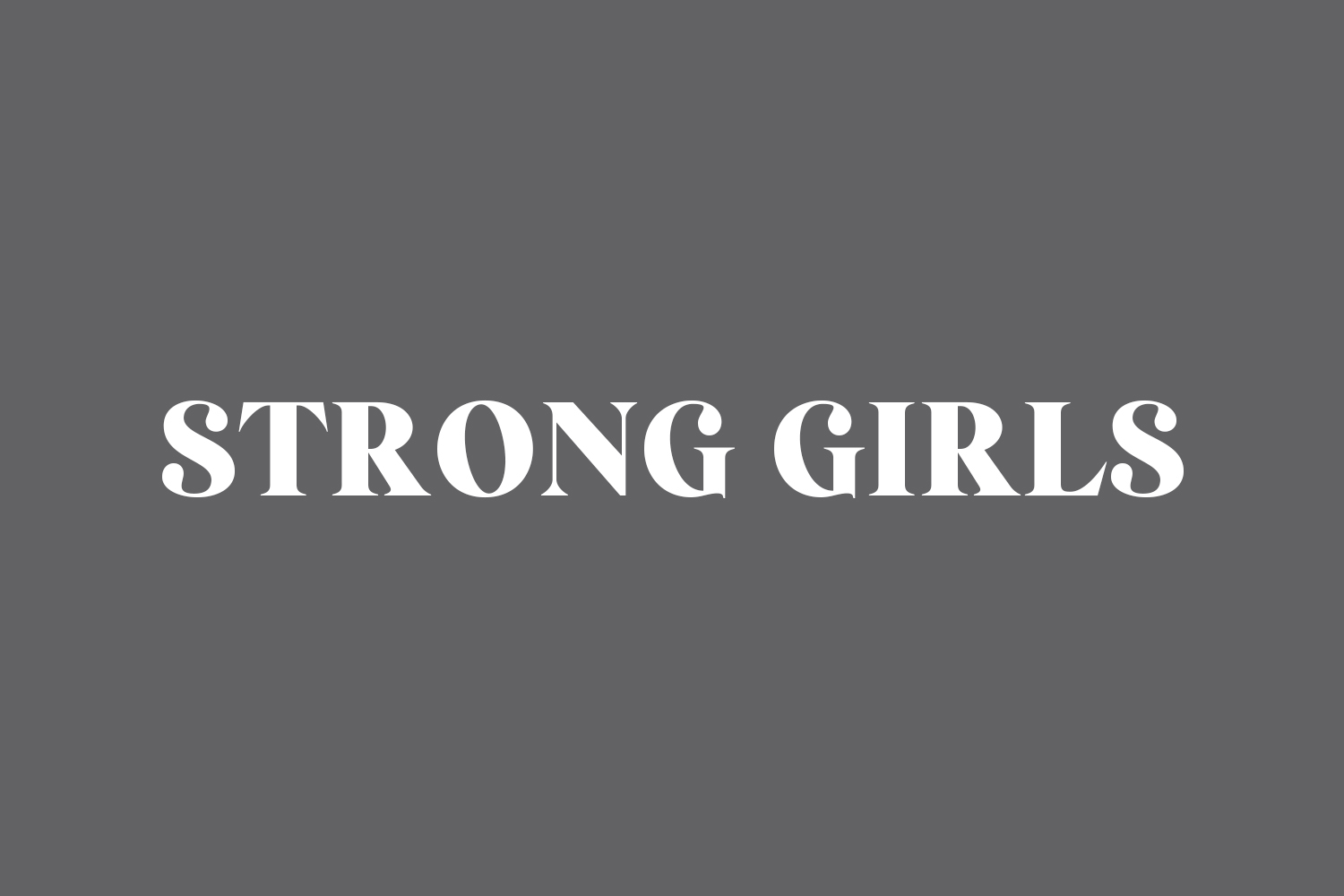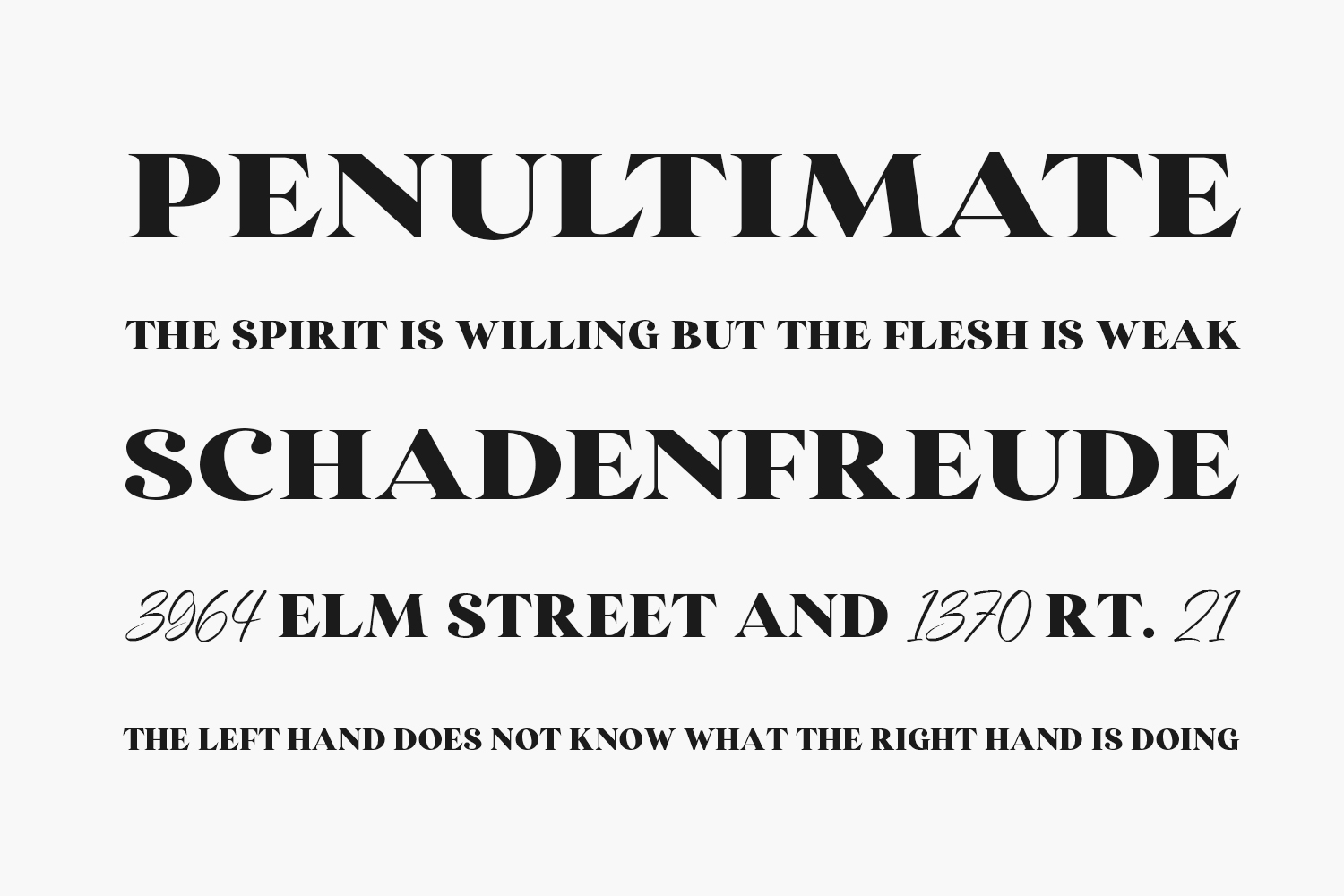
Strong Girls Free Font is a bold, retro looking, and fun serif font. Add this cool font to your creations and they will instantly come alive. Strong Girls Free Font was designed by Saridezra is a demo and free for personal use only. Please purchase the full version for commercial use.